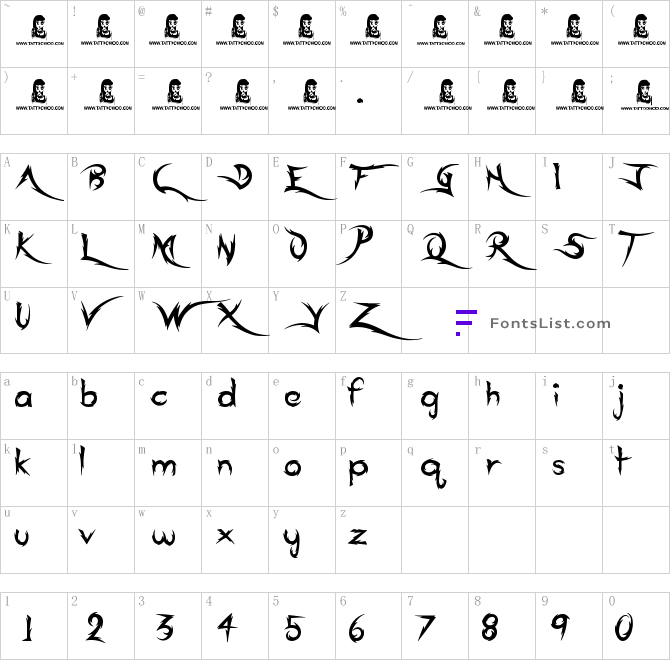
- Font Name:Ace Records
Ace-Records.ttf is a very beautiful artistic font, Ace-Records.ttf is widely used in the design and printing of various books and pictures,Ace-Records.ttf has a strong visual impact,Ace-Records.ttf is a commonly used font in newspapers, magazines and books, and is used in posters, e-commerce Poster design, store design, logo design, font design and other fields.Ace-Records.